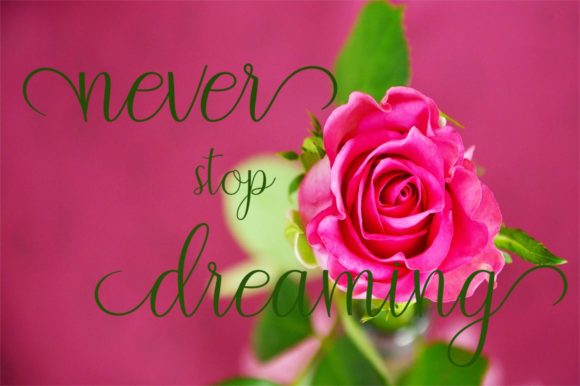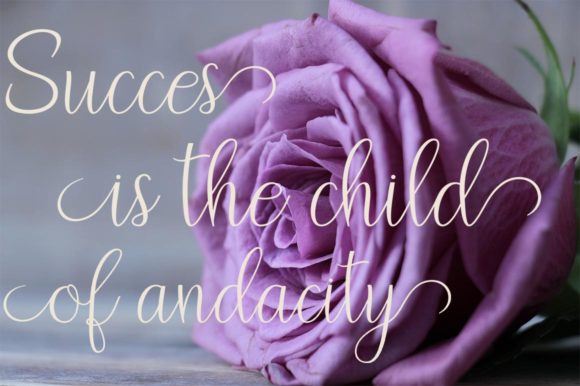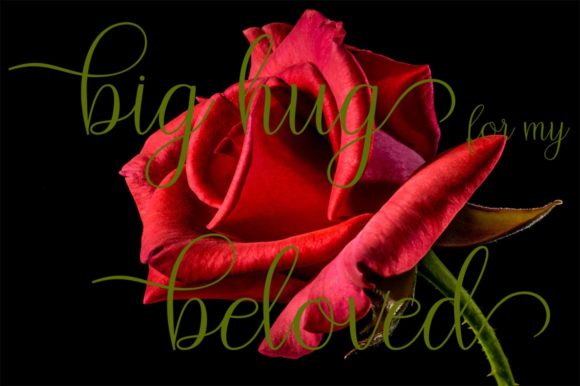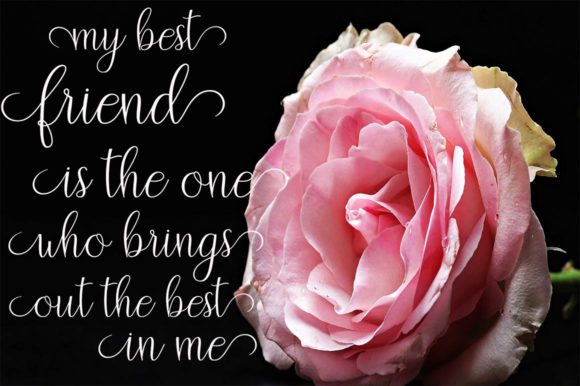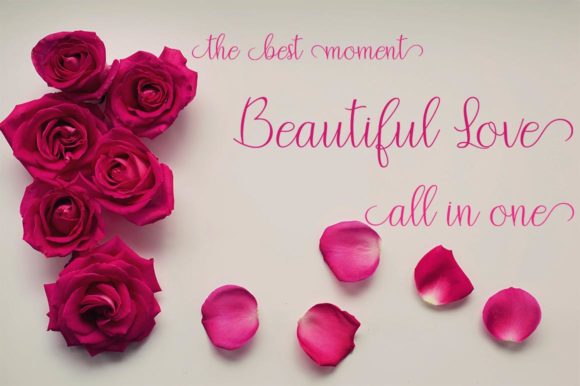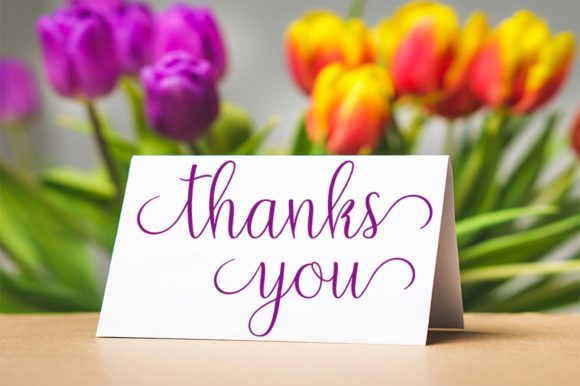
Introduction to Maychan Font
As a designer, there’s nothing quite like the thrill of finding the perfect font for a creative project. It’s that moment when all the pieces come together, and you can envision your design coming to life. For me, that moment was when I stumbled upon the Maychan Font – a modern script font that exudes elegance and sophistication. With its smooth baseline and trendy, feminine style, it’s no wonder why designers and artists are falling in love with this design resource.
The Maychan Font is more than just a pretty face; it’s a versatile tool that can elevate any design project. Whether you’re creating a logo, business card, or greeting card, this font is sure to impress. Plus, with its transparent background and high-quality design, it’s perfect for any creative project that requires a touch of class.
Key Features of Maychan Font
- High-quality design resource ideal for creative projects, including logos, branding, and graphics.
- Transparent background allows for seamless integration into designs with custom colors and effects.
- Unique, hand-drawn style with intricate details and textures adds a touch of personality to any design.
- Available in a range of sizes, from 20px to 200px, making it suitable for various design applications.
- Designed with high-resolution images in mind, ensuring crisp and clear display on both web and print materials.
- Perfect for designers, artists, and creatives looking for a free and versatile design resource to elevate their projects.
Honest Review: Maychan Font
I recently came across the Maychan Font, a design resource that has caught my attention. As a designer, I’m always on the lookout for high-quality fonts that can elevate my creative projects.
Here are some of the things that work well with the Maychan Font:
- Unique and playful design style ✨
- Wide range of characters, including international characters and symbols
- Transparent background, allowing for easy customization and flexibility
- Not ideal for formal or professional projects, as it may come across as too casual or playful ⚠️
- No support for variable font formats, which may limit its use in certain design scenarios
Overall, I think the Maychan Font is a great addition to any designer’s toolkit. While it may not be suitable for every project, its unique design style and high quality make it an excellent choice for creative and playful projects. I’d definitely recommend it for anyone looking for a fun and eye-catching font for their next design project.
Tips for Getting the Most Out of Maychan Font
To get the most out of the Maychan Font, use it on a transparent background to create a high-quality design resource. Experiment with different font sizes and styles to add creative flair to your project.
The Maychan Font is perfect for designing invitations, posters, and other marketing materials. Its high-quality design makes it an ideal choice for creative projects that require a unique and eye-catching font.
When to use: Wedding invitations, luxury branding, high-end product designs.
Comparison: Great Vibes Font offers a more polished look compared to Maychan Font, making it suitable for high-end design projects.